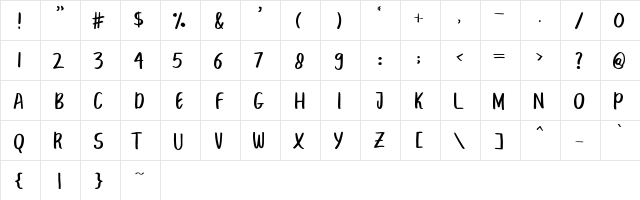
BREAK BEACH Regular
Design Context for BREAK BEACH Typeface
BREAK BEACH is a composed and adaptable typeface that performs quietly and consistently across a wide range of design contexts.
Pro Tip: Use BREAK BEACH in both headline and body roles to test its range before committing to a single application.